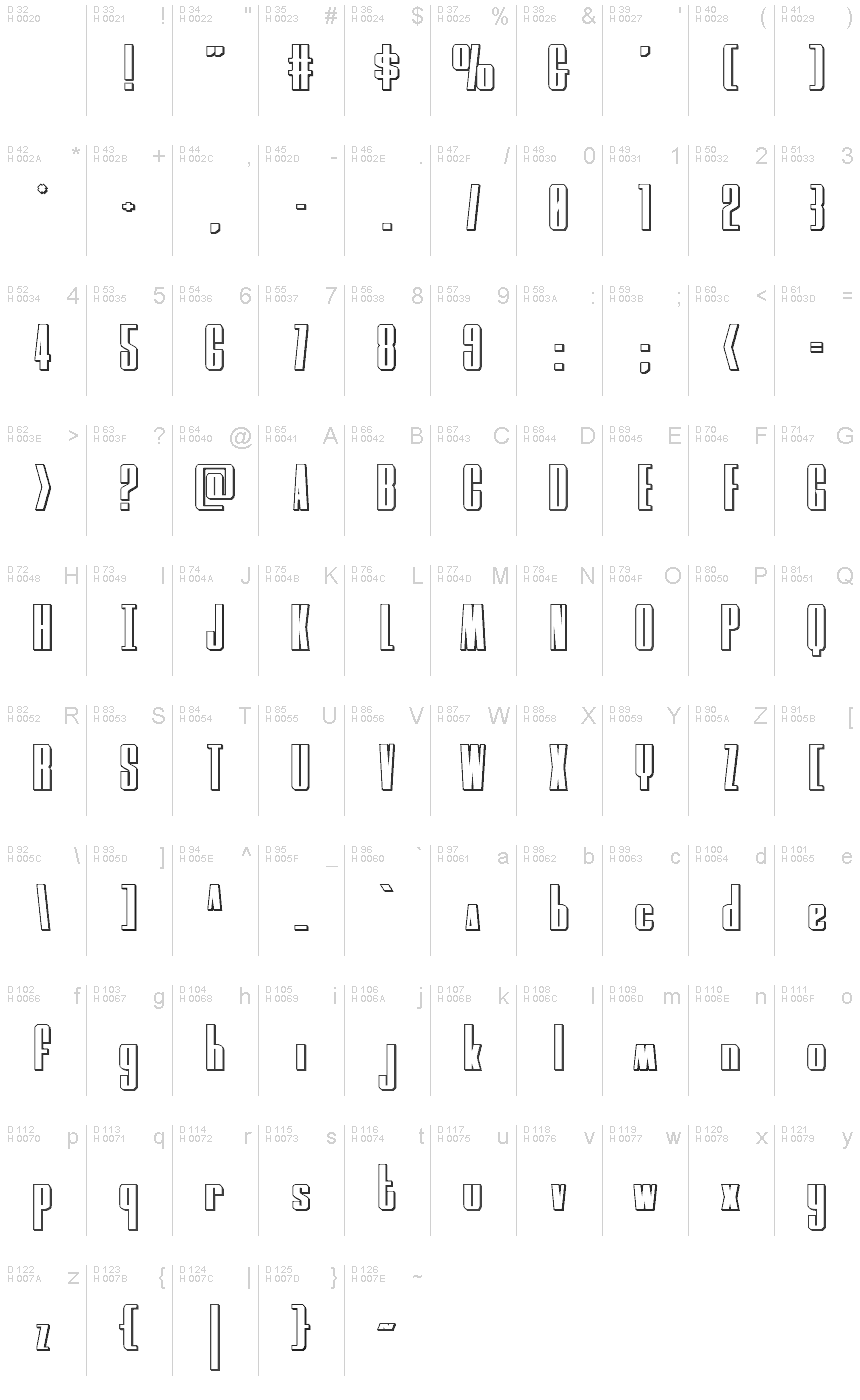
MOON Runner 3D Regular
MOON Runner is a striking display font that exudes a futuristic, 3D aesthetic. Designed by Daniel Zadorozny of Iconian Fonts, this condensed font boasts a bold, geometric style that immediately captures attention.
The unique letterforms, with their sharp angles and dimensional effects, lend an avant-garde, sci-fi-inspired vibe to any design. MOON Runner's versatility shines through, making it a compelling choice for a range of applications, from eye-catching headlines and titles to immersive gaming interfaces and cutting-edge branding.
Its bold, refined character ensures it stands out, while its condensed nature allows for impactful, space-efficient usage.
The unique letterforms, with their sharp angles and dimensional effects, lend an avant-garde, sci-fi-inspired vibe to any design. MOON Runner's versatility shines through, making it a compelling choice for a range of applications, from eye-catching headlines and titles to immersive gaming interfaces and cutting-edge branding.
Its bold, refined character ensures it stands out, while its condensed nature allows for impactful, space-efficient usage.